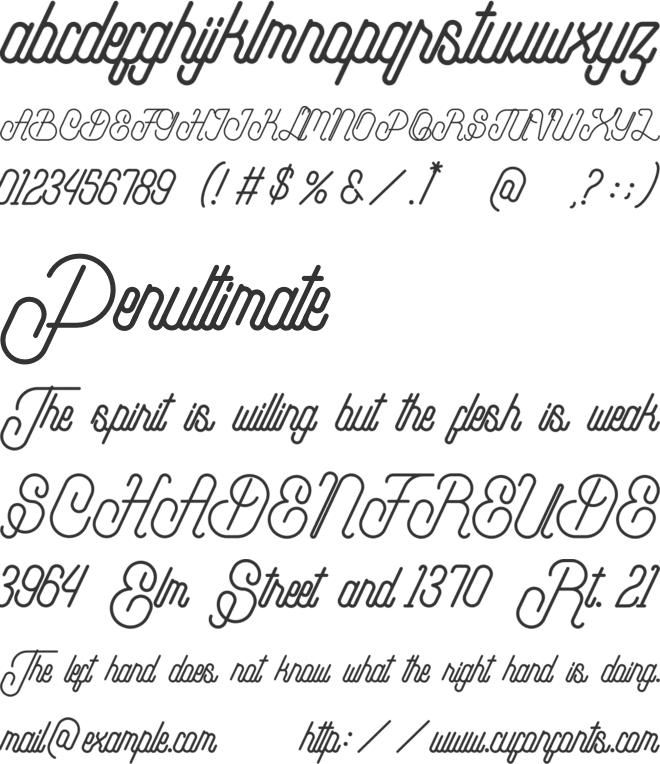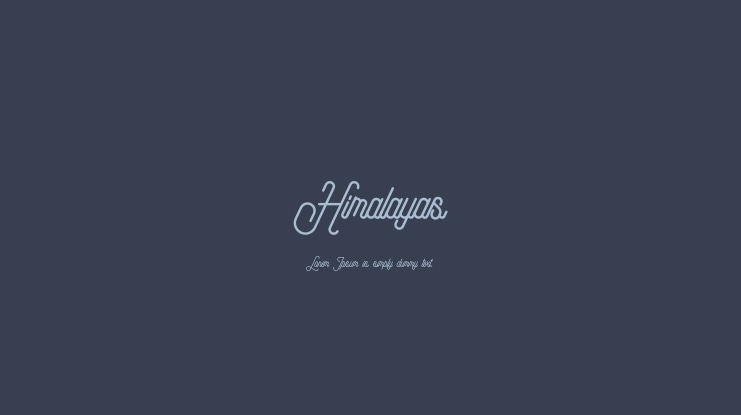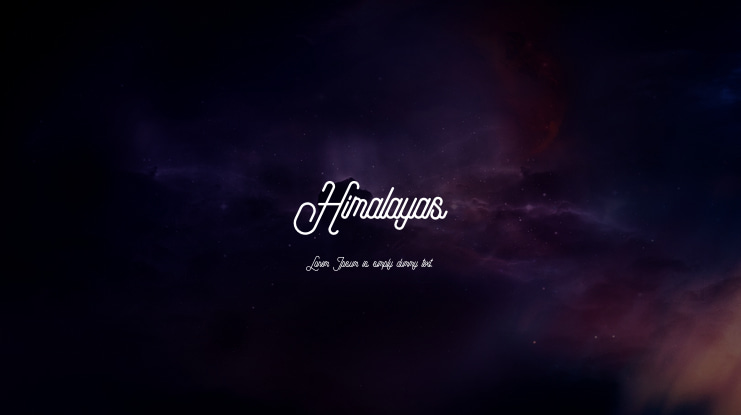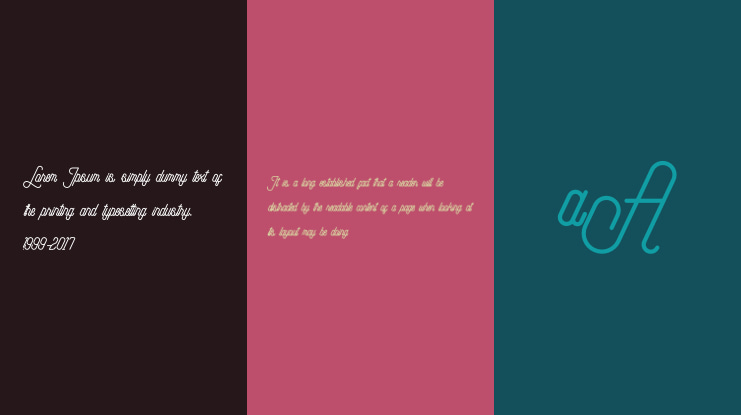
Himalayas Font
Himalayas is Script Monoline font design, with alternates and swash features that make the font more elegant
This font can be used for logos, branding, invitations, stationery, wedding designs, social media posts, and much more!
Himalayas Features :
- Ligature
- Stylistic Alternates
- Swash